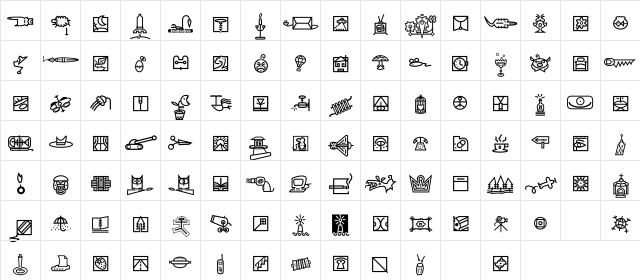
DF Beorama ITC Regular
| Foundry | International Typeface Corporation |
| Designer | Slobodan Miladinov |
Design Context for DF Beorama ITC Typeface
DF Beorama ITC is a composed and adaptable typeface that performs quietly and consistently across a wide range of design contexts.